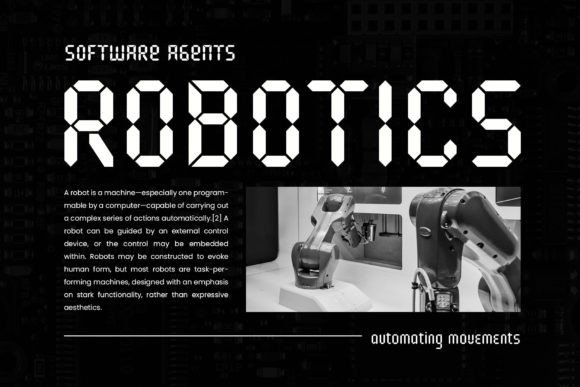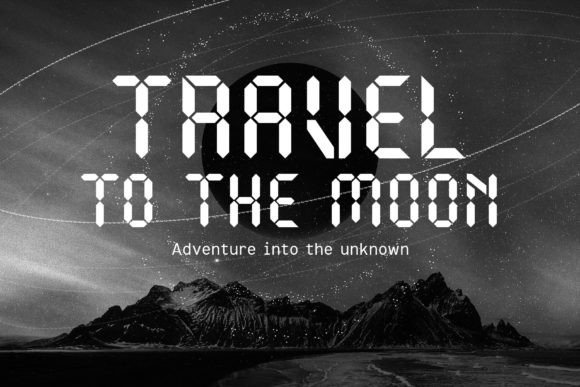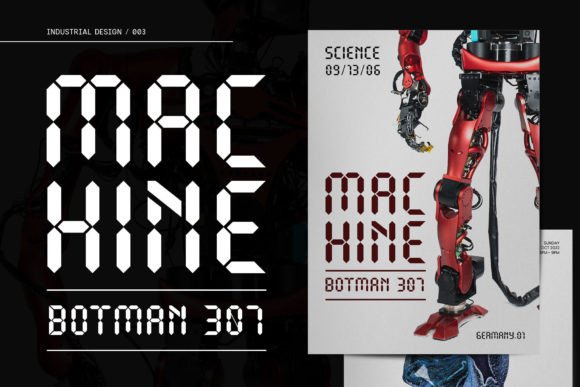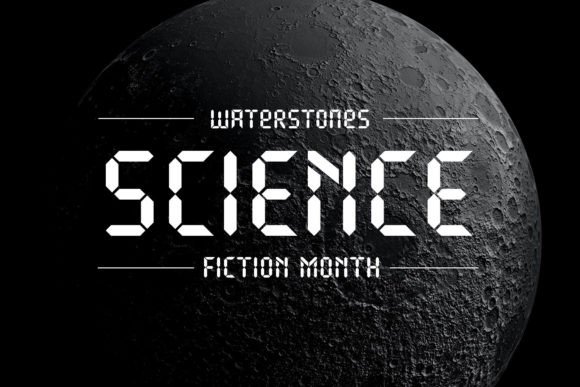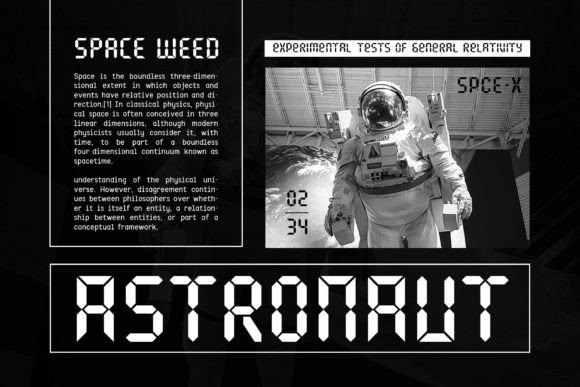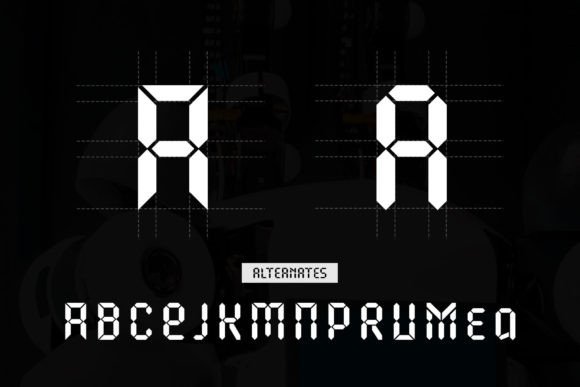
Ganeros Font: A Futuristic Display Font for Bold Designs
In the world of typography, fonts play a crucial role in conveying the tone and aesthetic of a design. For designers and crafters looking to add a touch of futurism to their work, Ganeros Font is an excellent choice. This digital font is inspired by the rigid shapes of typography, yet it exudes a sense of dynamism and strength, making it perfect for display purposes.
What is Ganeros Font?
Ganeros Font is a display font designed with a futuristic style in mind. Its unique design combines rigid shapes with a dynamic feel, making it an excellent choice for projects that require a bold and modern look. The font’s sleek lines and geometric shapes give it a cutting-edge appearance that’s sure to grab attention.
Characteristics of Ganeros Font
Ganeros Font boasts several characteristics that make it an excellent choice for designers and crafters. Some of its key features include:
- Futuristic style: Ganeros Font is designed with a futuristic style in mind, making it perfect for sci-fi themes, space-related projects, and techno-inspired designs.
- Rigid shapes: The font’s rigid shapes give it a sense of structure and stability, making it suitable for designs that require a sense of strength and solidity.
- Dynamic feel: Despite its rigid shapes, Ganeros Font has a dynamic feel that makes it perfect for display purposes. Its sleek lines and geometric shapes give it a sense of movement and energy.
- Versatility: Ganeros Font is a versatile font that can be used for a wide range of projects, from sci-fi themes to sports-related designs.
Use Cases for Ganeros Font
Ganeros Font is perfect for a variety of projects, including:
- Sci-fi themes: The font’s futuristic style makes it an excellent choice for sci-fi themes, such as movie posters, book covers, and video game designs.
- Space-related projects: Ganeros Font is also suitable for space-related projects, such as astronomy websites, space-themed posters, and planetary designs.
- Techno-inspired designs: The font’s sleek lines and geometric shapes make it perfect for techno-inspired designs, such as music posters, flyers, and brochures.
- Sports-related designs: Ganeros Font’s dynamic feel makes it an excellent choice for sports-related designs, such as team logos, jerseys, and sports equipment designs.
Why Choose Ganeros Font?
There are several reasons why designers and crafters should choose Ganeros Font for their projects:
- Unique design: Ganeros Font has a unique design that sets it apart from other fonts. Its futuristic style and rigid shapes make it an excellent choice for designers looking to add a touch of futurism to their work.
- High-quality design: The font is designed with high-quality in mind, making it perfect for professional designs and projects.
- Easy to read: Despite its futuristic style, Ganeros Font is easy to read, making it suitable for body text and display purposes.
- Versatile: The font’s versatility makes it an excellent choice for a wide range of projects, from sci-fi themes to sports-related designs.
In conclusion, Ganeros Font is an excellent choice for designers and crafters looking to add a touch of futurism to their work. Its unique design, high-quality construction, and versatility make it perfect for a wide range of projects, from sci-fi themes to sports-related designs. Whether you’re working on a professional project or a personal craft, Ganeros Font is sure to impress.